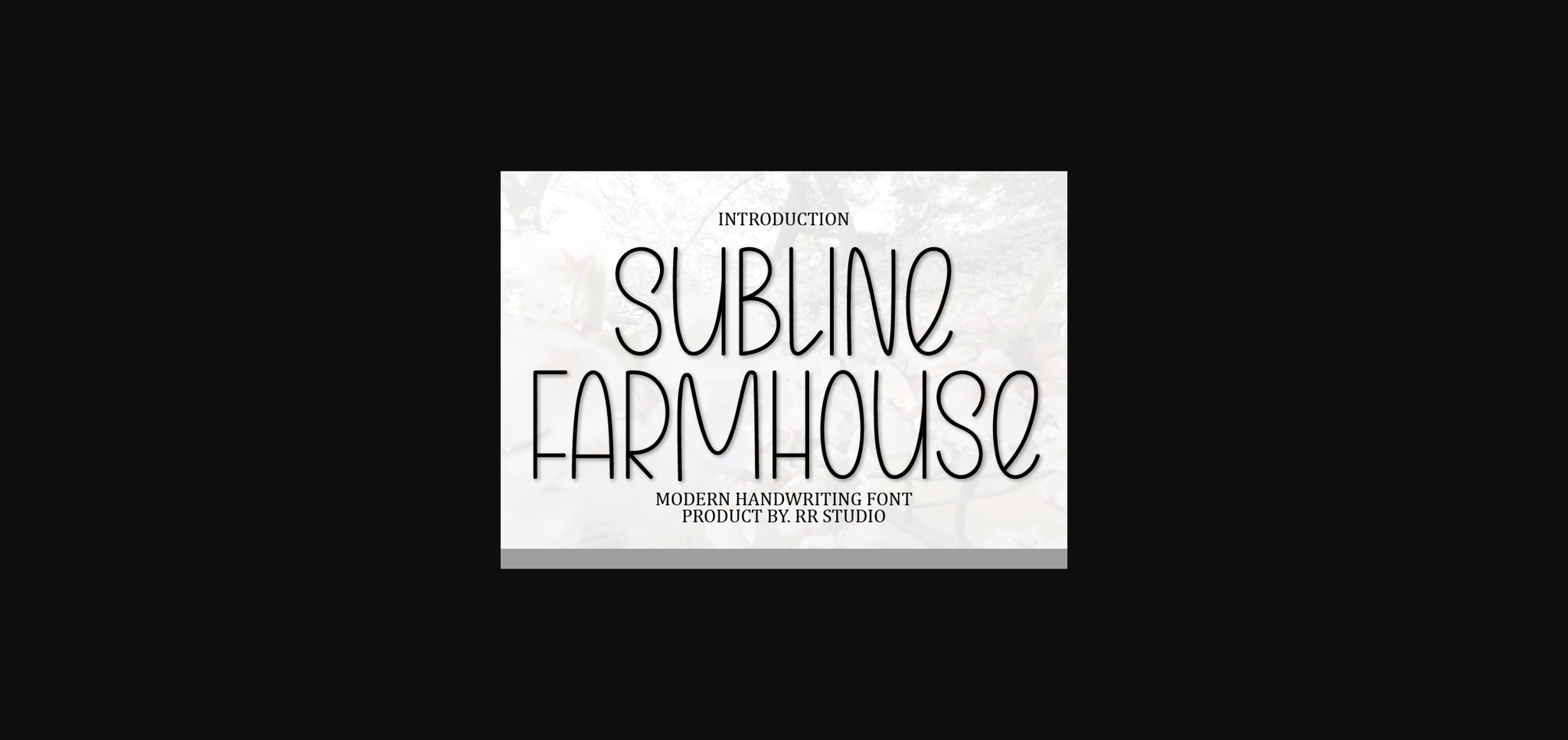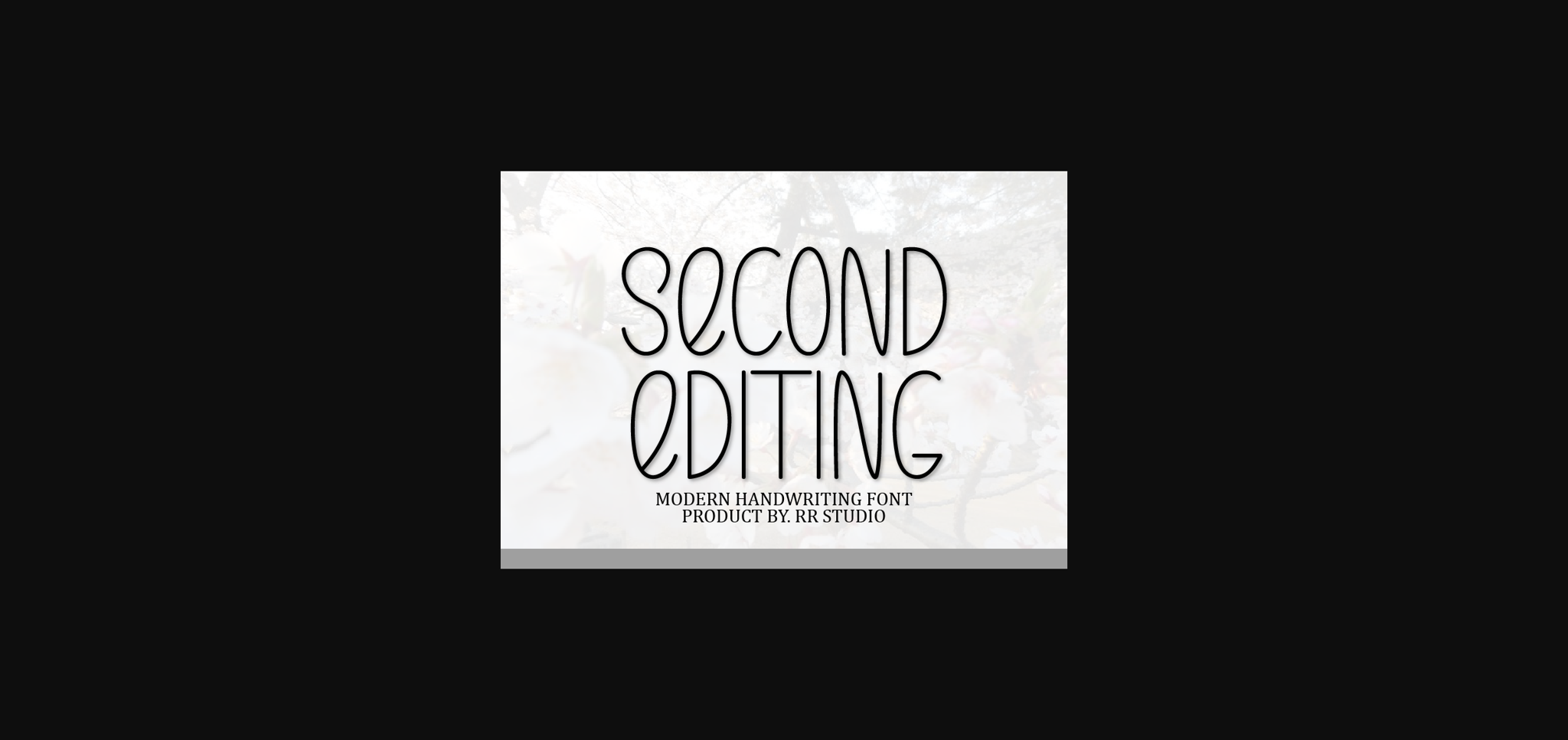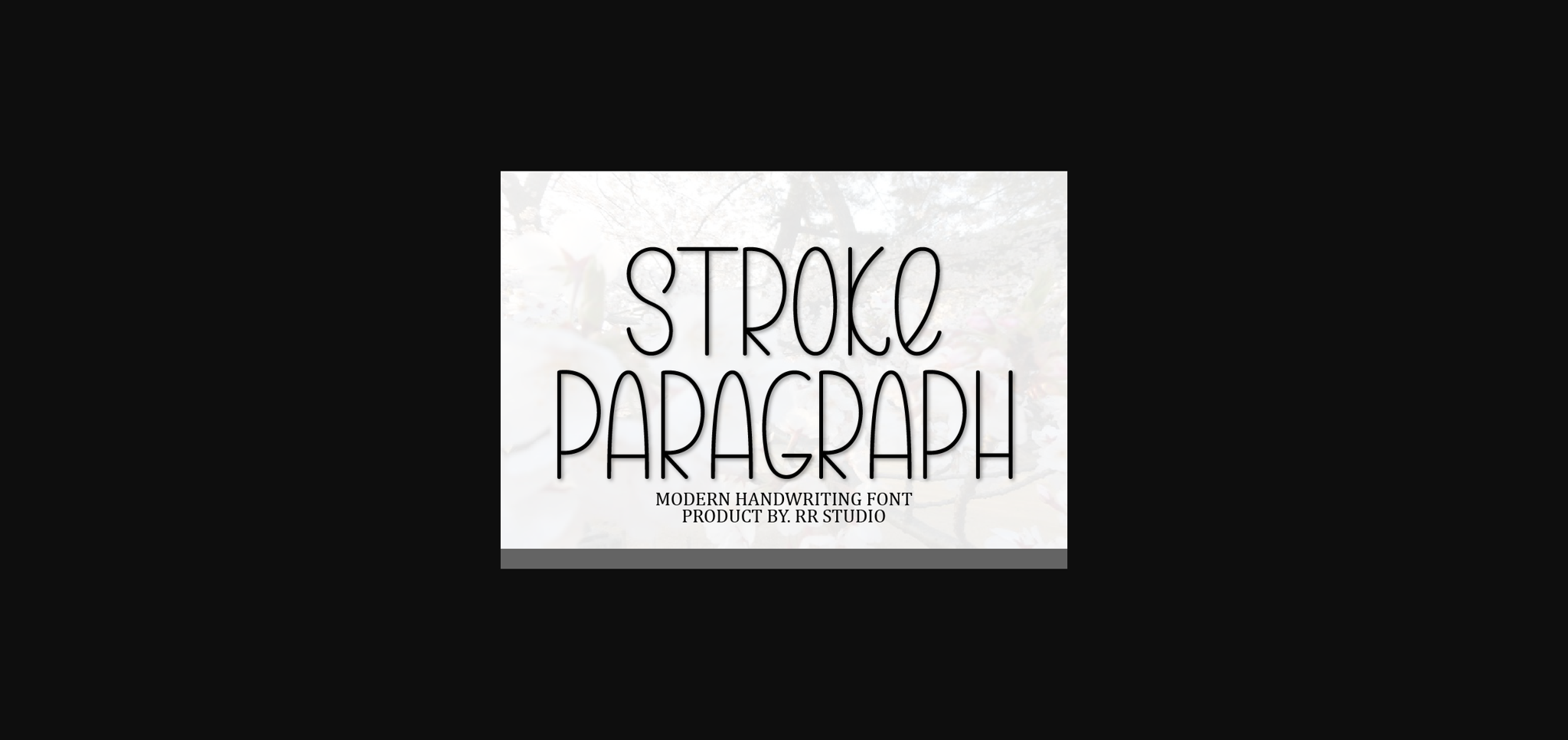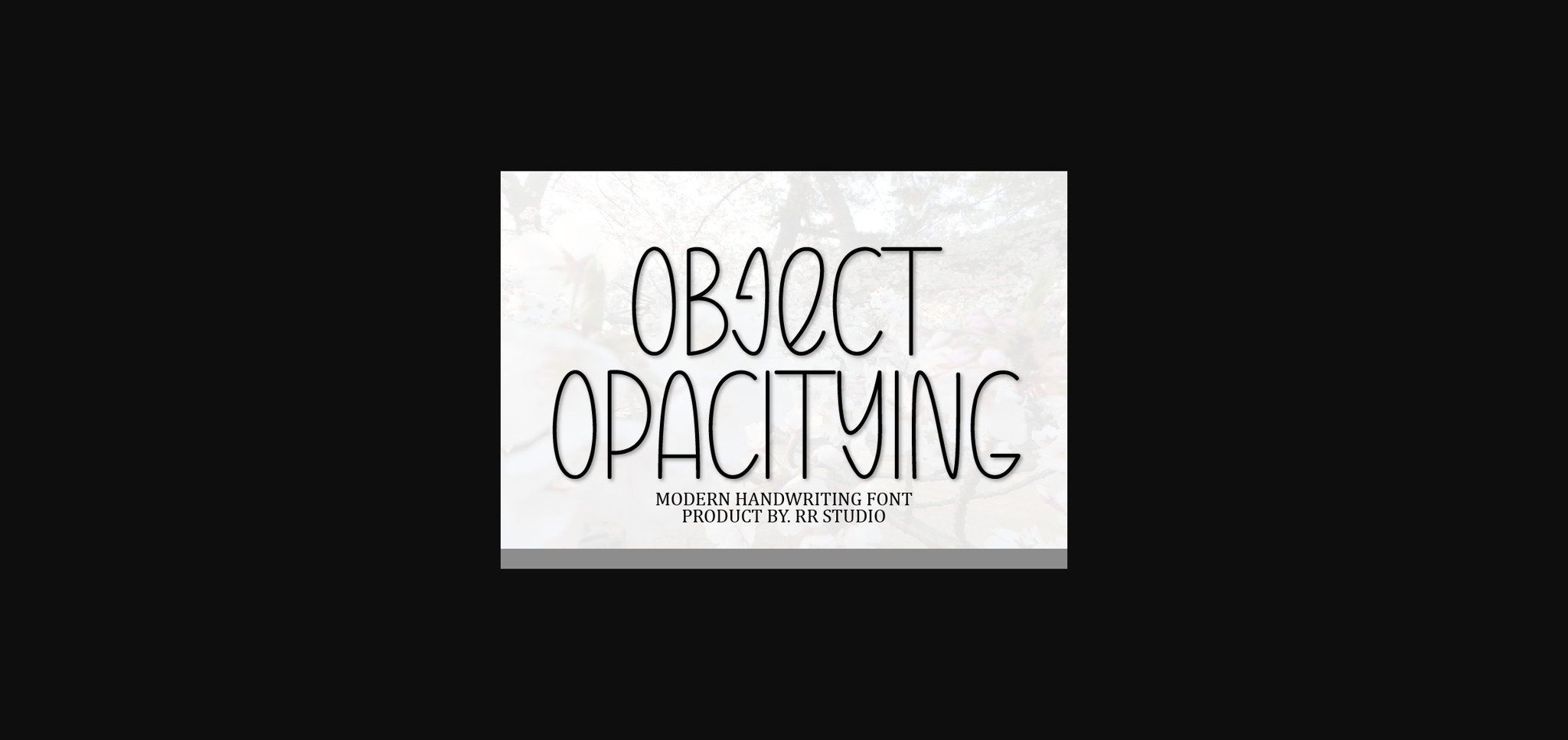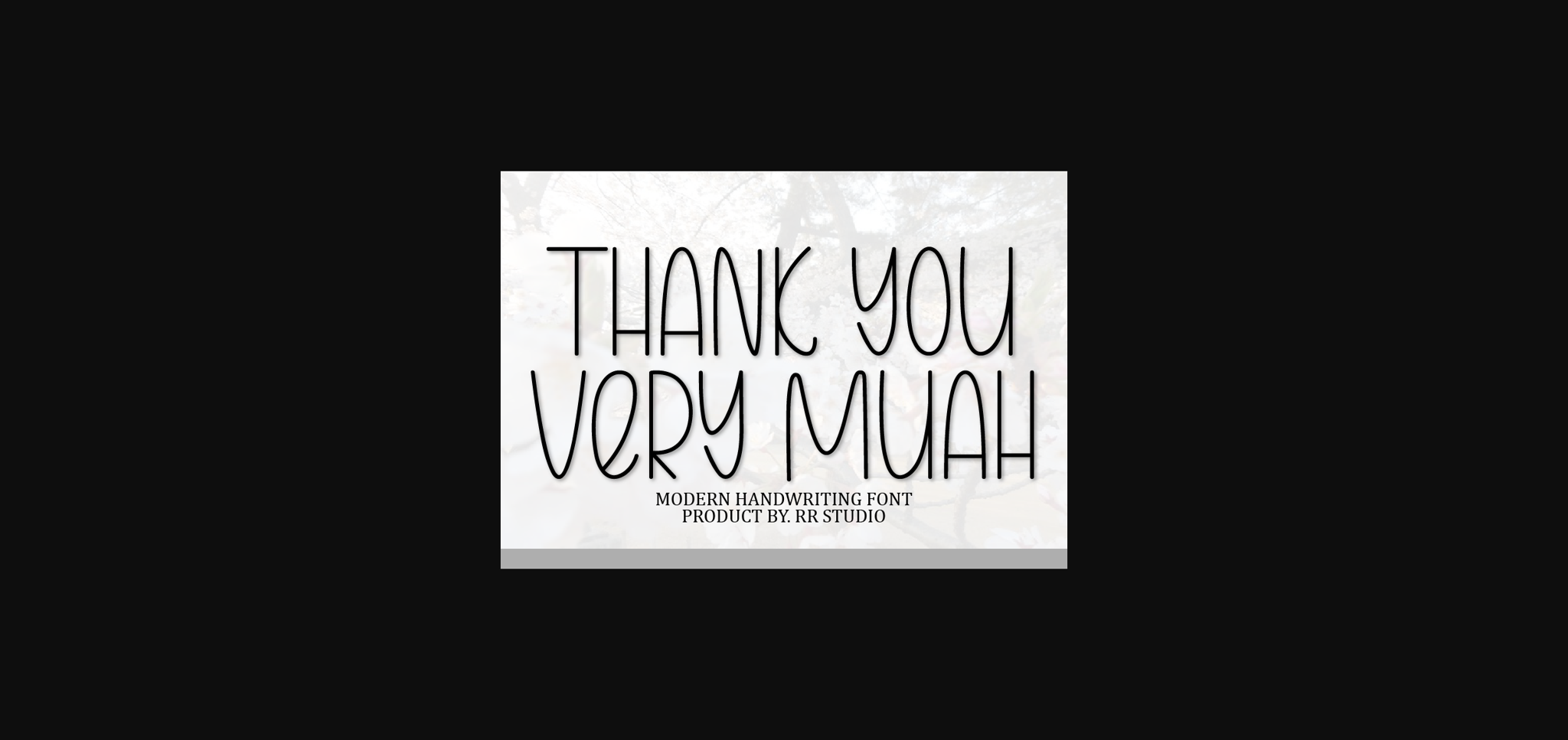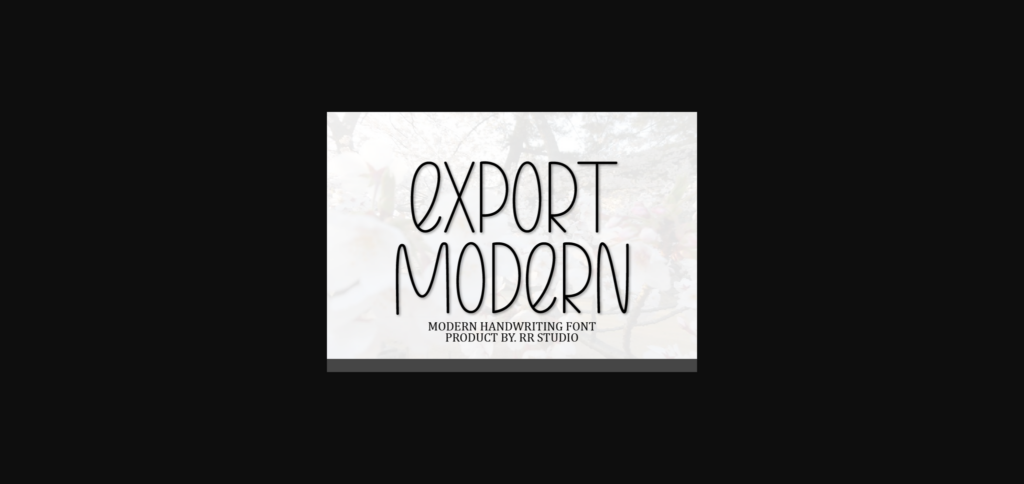
HomeSans Serif FontsSubline Farmhouse Font Sans Serif Fonts Subline Farmhouse Font FacebookXPinterestWhatsApp 1 of 8 ... Subline Farmhouse Font Poster 2... Subline Farmhouse Font Poster 3... Subline Farmhouse Font Poster 4... Subline Farmhouse Font Poster 5... Subline Farmhouse Font Poster 6... Subline Farmhouse Font Poster 7... Subline Farmhouse Font Poster 8... About Subline Farmhouse Font Subline Farmhouse is a classic and simple sans-serif font. Add it to your crafty ideas and enjoy the results! DOWNLOAD NOW People also explored Fantera Font Fall Season Font Keshya Font Lokananta Font Licenzo Font Aboha Font Beatrix Script Font Roberto Font England Font 317 0 TagsSubline Farmhouse Font Previous articleStroke FontNext articleIndigo Summer Font LEAVE A REPLY Cancel reply Comment: Please enter your comment! Name:* Please enter your name here Email:* You have entered an incorrect email address! Please enter your email address here Website: Save my name, email, and website in this browser for the next time I comment. Personal Use Free Soulties Personal Use Free Read more about this font Advantage Personal Use Free Read more about this font Creativo Personal Use Free Read more about this font Jilliant Personal Use Free Read more about this font BLOG Elegant Wedding Invitation Fonts – Handwritten & Script Fonts Elegant Wedding Invitation Fonts Your wedding day is one of the most important moments of your life, and every detail matters—including your invitation design. Our... Exploring Font Trends Best Fonts for T-Shirt Design – Top 2025 Picks Free Fonts Risk: Why Free Fonts Can Be Dangerous for Designers